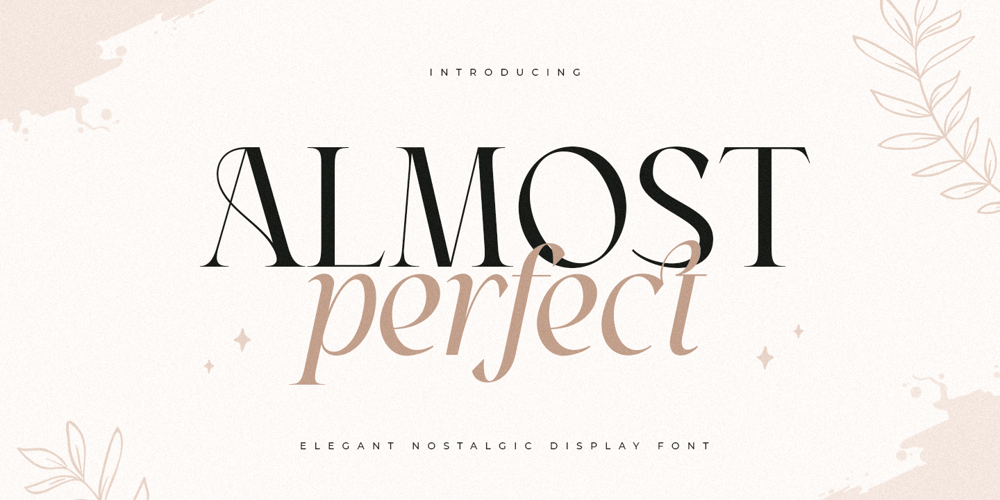
Almost Perfect Font Family was designed by Zamroni Hamzah and published by Sensatype Studio. Almost Perfect contains 2 styles and family package options. A Nostalgic Elegant Serif font that we created special for elegant branding needs, with unique shape will be ready to add value of your brand. It so nice to leverage designer or product owner that need solutions to make their design look more stylish and modern. And specially for Almost font, We prepared any characters to help you create unlimited variations for your creative needs.Almost Nostalgic Serif font ready with: Ready with Regular and Italic version Preview as a inspirations that you can do with Almost font Ready with Lowercase and Uppercase characters Wish you enjoy our font. 🙂